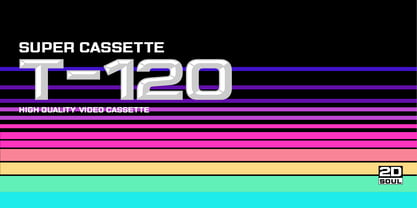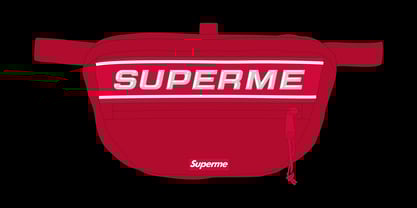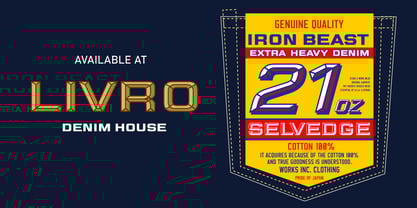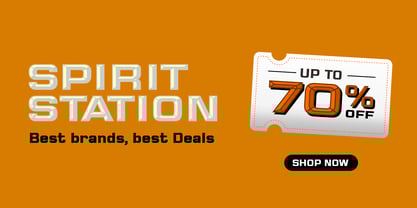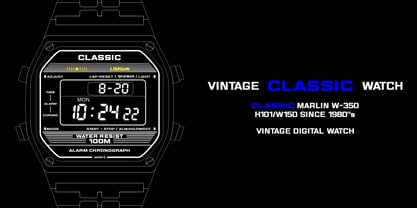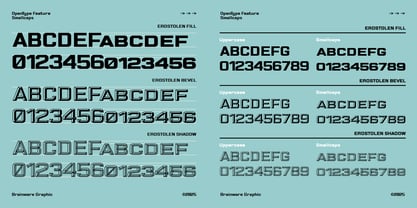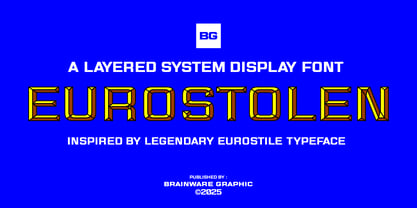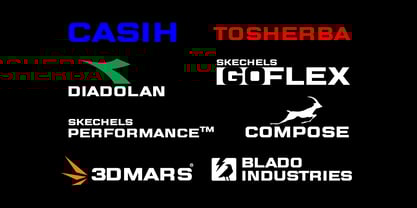
Eurostolen
by Brainware Graphic
The Eurostolen Font Family was designed by Muhammad Jauhar Azmi and published by Brainware Graphic. Eurostolen contains 3 styles and family package options. More about this family
Eurostolen is a display face that comes in three variations. Each can be used effectively on their own or layered for a uniquely effect. Originally inspired by the legendary Eurostile typeface.
Designers: Muhammad Jauhar Azmi
Foundry: Brainware Graphic